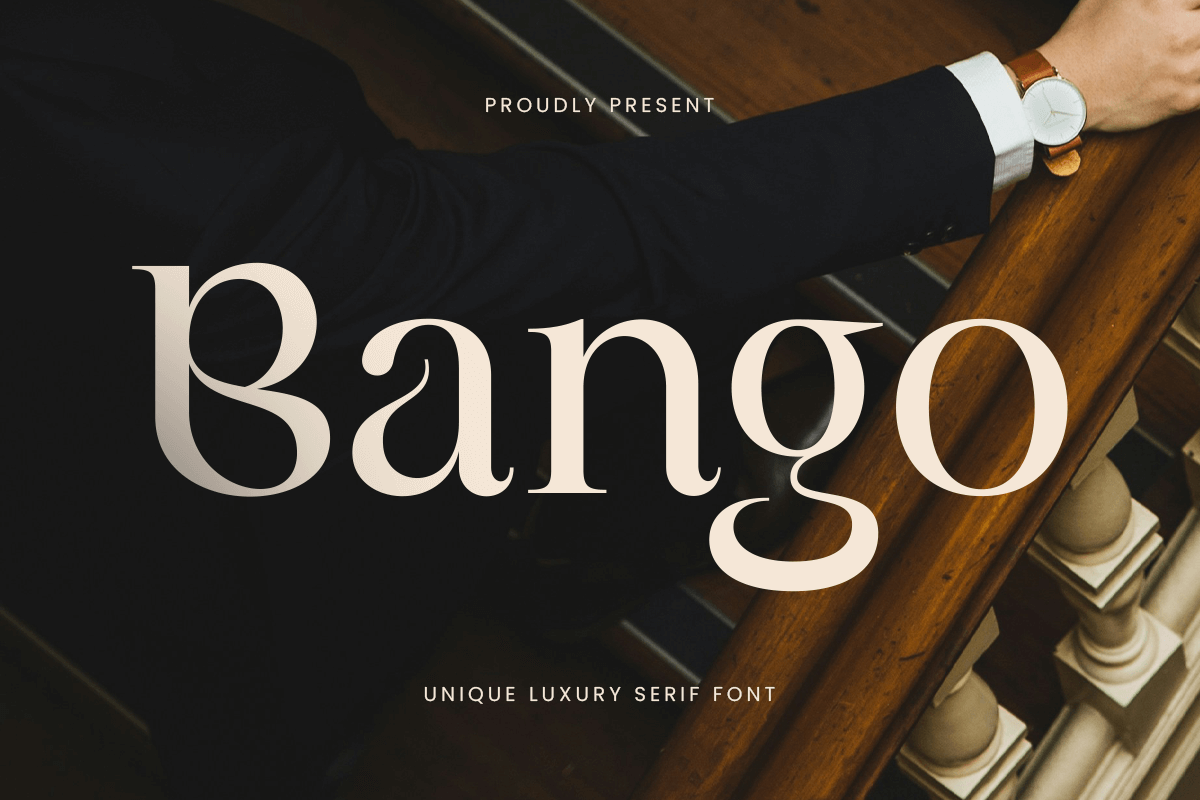
Bango
-Unique Logo Serif FontBango - Unique Logo Serif Font
Bango, also known as Mangi on MyFonts, is a unique luxury serif font crafted for high-end branding, logos, and elegant creative projects. Its refined letterforms and sophisticated design provide a polished, professional, and luxurious look for premium designs.
Ideal for editorial projects, fashion branding, packaging, and digital applications, Bango combines readability with elegance, making it perfect for designers seeking a standout serif typeface with a luxurious touch.
Bango - Unique Luxury Serif Font Features
Elegant and unique serif character set
Perfect for luxury branding, logos, and premium designs
OpenType features for extra versatility